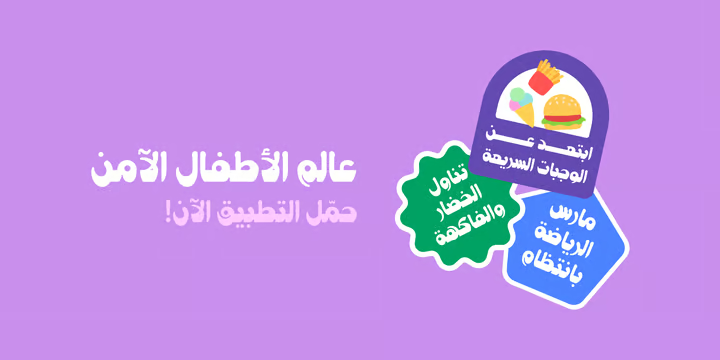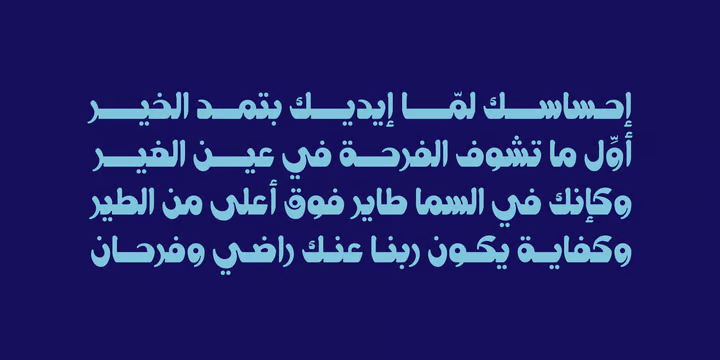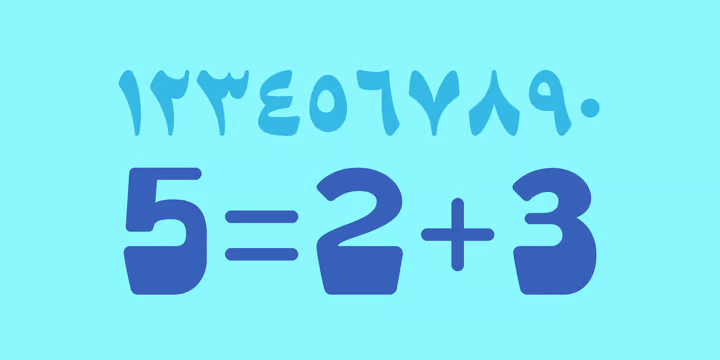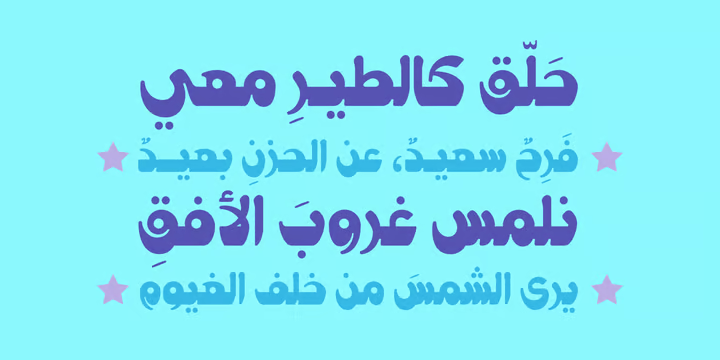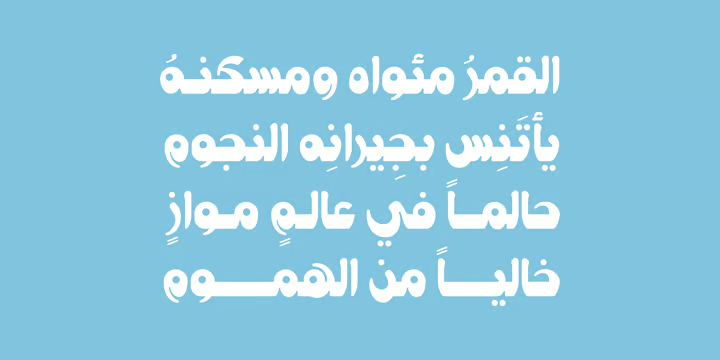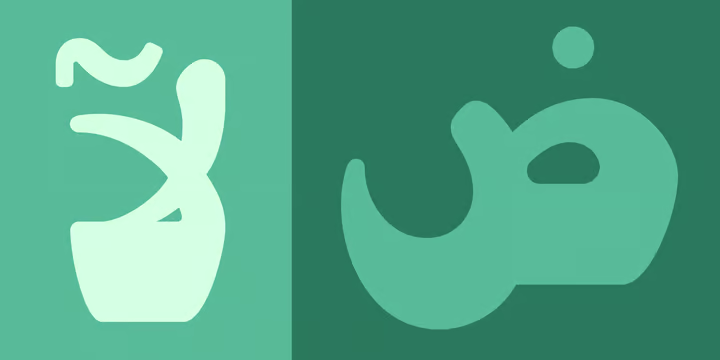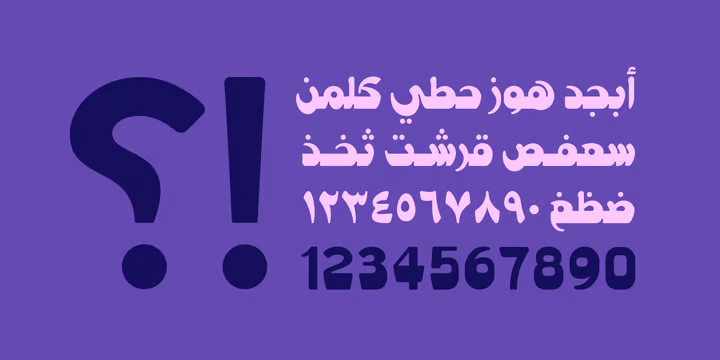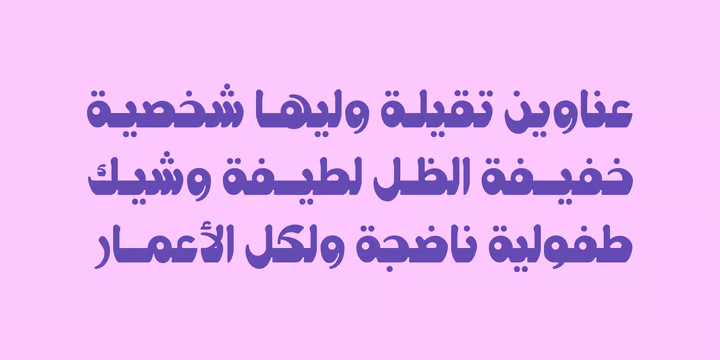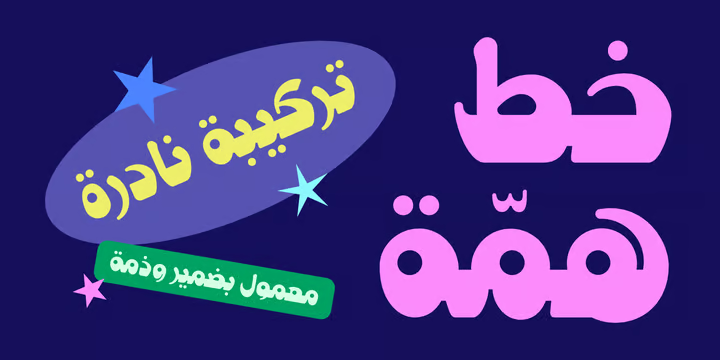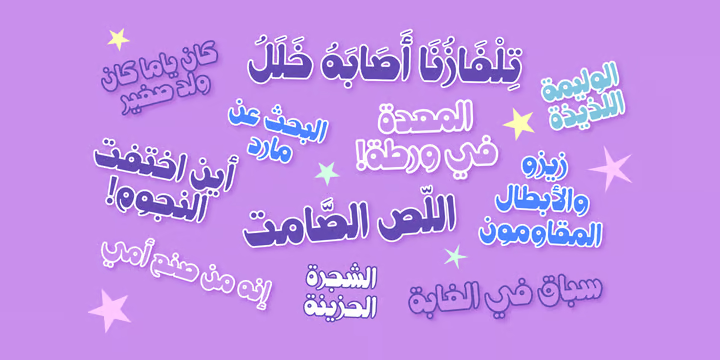
Hemmah Arabic Font
Hemmah is an Arabic display font that features a dynamic, heavy and playful letterform design. This font is an excellent choice for a various range of creative projects including publication design, branding and advertising. Hemmah supports web, print and mobile applications.
Hemmah Arabic Font is a Arabic Font font that brings a professional and versatile look to your projects. Hemmah is an Arabic display font that features a dynamic, heavy and playful letterform design.